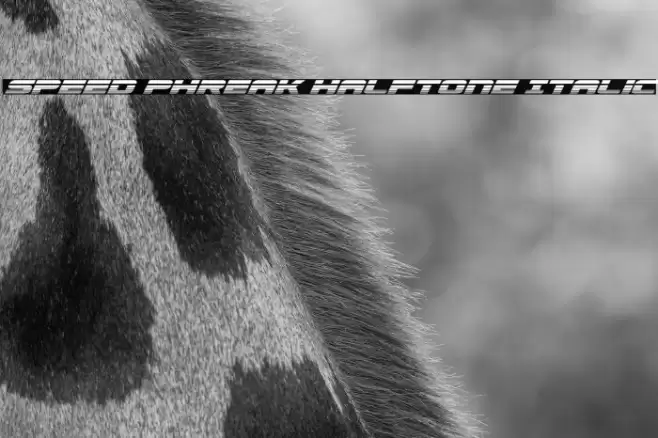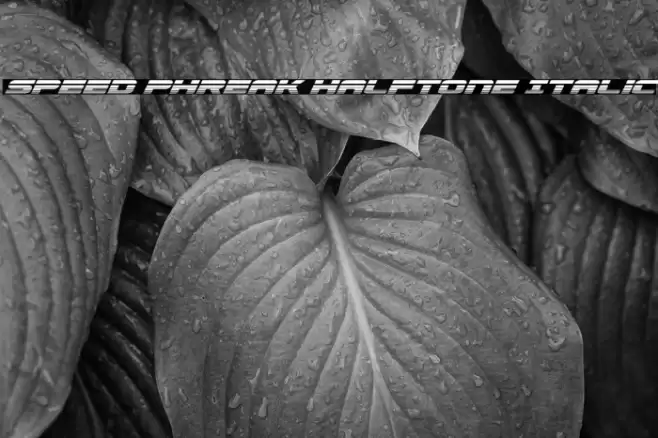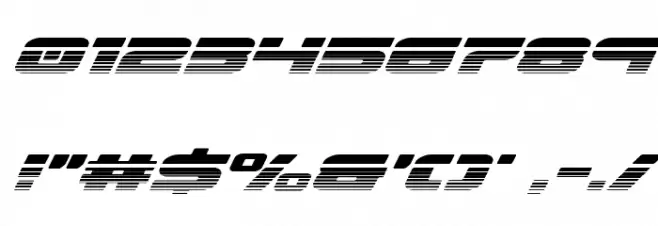
Speed Phreak Halftone Italic Font
Speed Phreak Halftone Italic Description
This dynamic and energetic font features a halftone effect that gives it a sense of movement and speed. The italicized letters are bold and striking, with a futuristic and tech-inspired design. Each character is composed of horizontal lines that create a sense of motion, making it ideal for projects that require a modern and edgy look. The font's unique style is perfect for conveying a sense of urgency or excitement, making it suitable for use in sports branding, automotive advertising, or any project that needs a high-energy aesthetic. Its distinct appearance ensures that it stands out, capturing attention with its bold and innovative design.
A bold, italicized font with a halftone effect, perfect for dynamic and modern designs from Uncategorized fonts.
- Proposed Projects: Ideal for sports branding, automotive advertising, tech-related projects, and any design requiring a high-energy aesthetic.